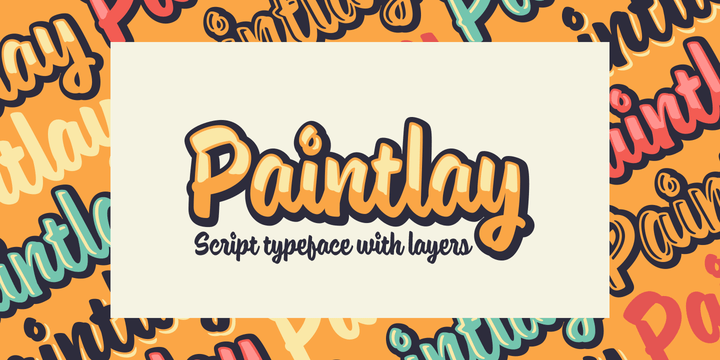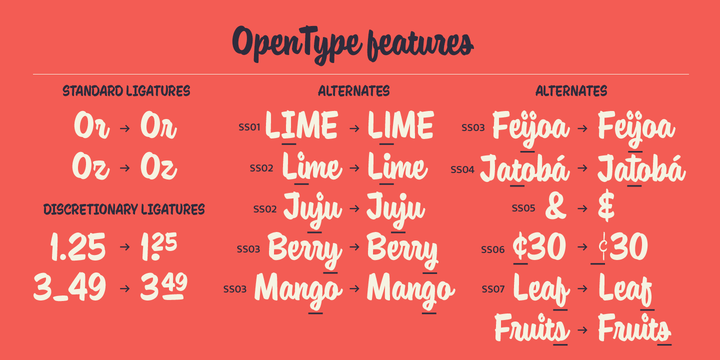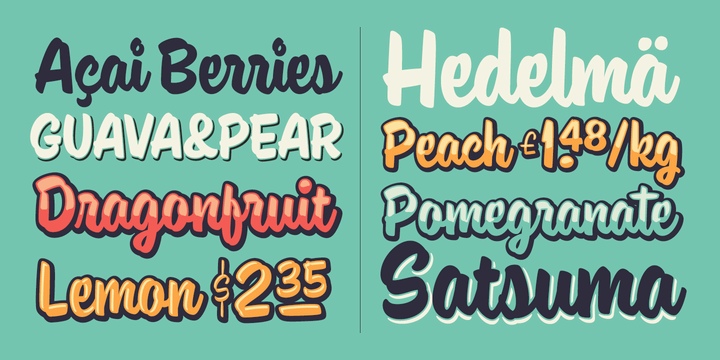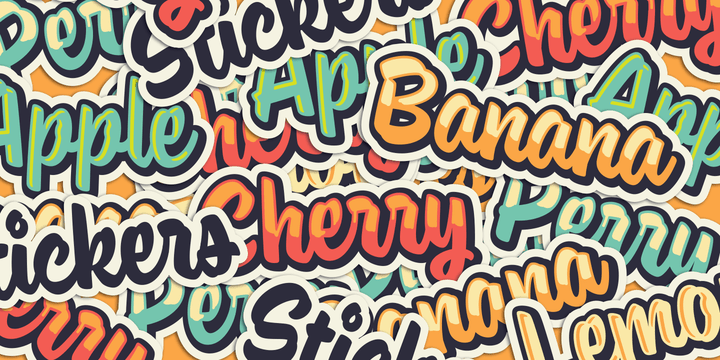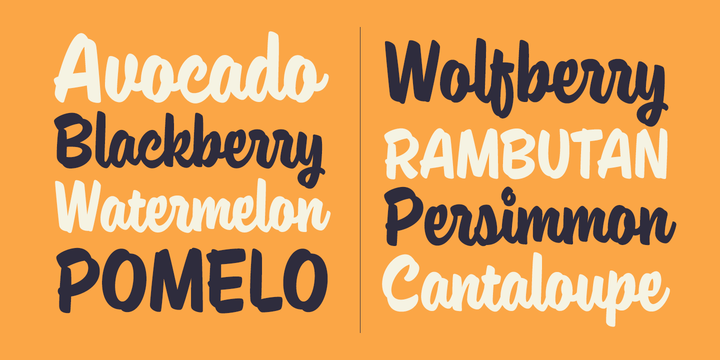
Paintlay
Font Family by Mika Melvas
Paintlay is a casual and laid-back brush script font. Bouncy baseline, upright strokes and soft forms are the main characteristic of Paintlay. What sets this font apart from others is the layers that include Base layer, two different highlight layers and two shadow layers.
You can either use the Base layer as a regular font. It works nicely like that. Or you can add a little depth to your designs by using the highlight layers and shadow layers.
Lay some paint with Paintlay. Just pick and mix the layers and have some fun!